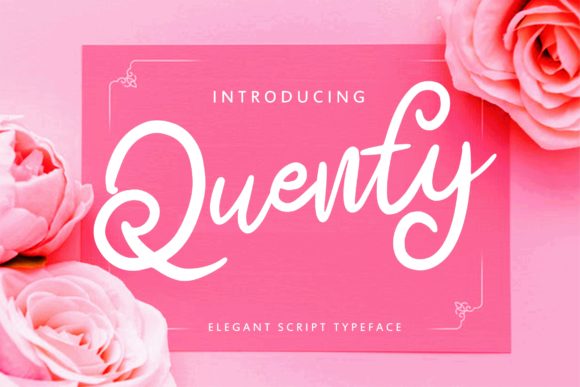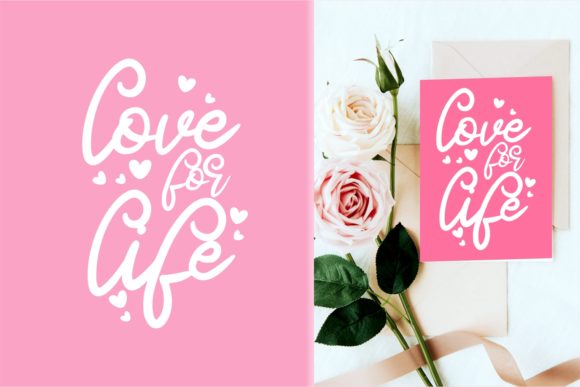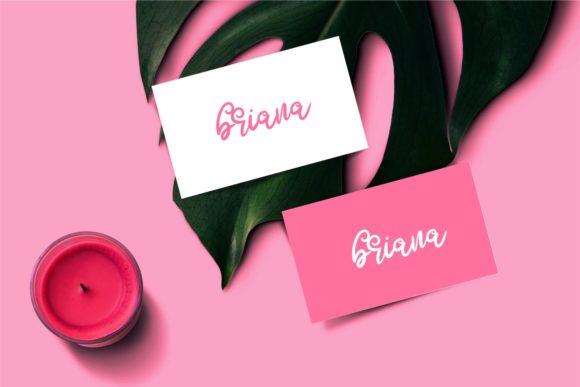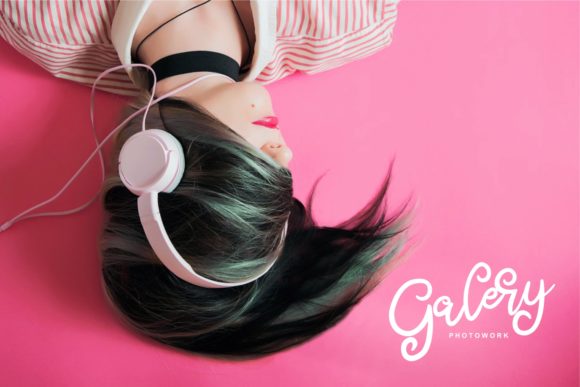
Quenty Font
About Quenty Font
Quenty is a beautiful and fresh script with an authentic vibe. This one-of-a-kind script will add a creative spark to any craft!